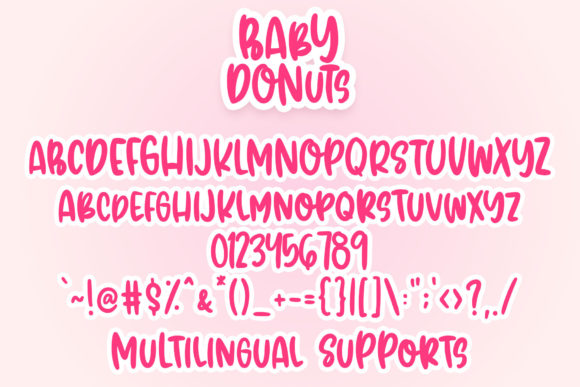
Discover the Sweet Delight of Baby Donuts Font
Have you ever been working on a design project and suddenly, a burst of creativity hits you? The colors, the textures, the fonts – everything comes together in perfect harmony. That’s what happened to me when I stumbled upon the Baby Donuts Font. Its sweet, crafty design immediately caught my eye and sparked a wave of inspiration.
Baby Donuts Font is a charming display font that embodies the spirit of playfulness and happiness. Its bold characters are designed to add a unique and naturally attractive flair to any design. Whether you’re creating a birthday invitation, a children’s book, or a social media post, Baby Donuts Font is sure to bring a smile to your audience’s face.
As a designer, you know how valuable it is to have a versatile font that can elevate your designs to the next level. Baby Donuts Font is that font. Its versatility and charm make it an ideal choice for any project that requires a touch of whimsy and fun.
Baby Donuts Font Key Features
- Font Family: Baby Donuts is a custom-designed font family.
- Character Count: Baby Donuts contains a wide range of characters, including uppercase and lowercase letters, numbers, and special symbols.
- Unique Characteristics: The font features a playful, hand-drawn style with rounded edges and a soft, pastel color scheme, making it ideal for use in children’s products, food branding, and other applications where a friendly, approachable look is desired.
Baby Donuts Font Review
Overall, I was quite excited to dive into the Baby Donuts Font, and while it has some lovely qualities, it also has some limitations that might make it less suitable for certain projects.
- The Baby Donuts Font has a very unique and playful aesthetic that is perfect for kids’ products, food labels, or any project that needs a fun, whimsical touch.
- The font is highly legible, even at small sizes, which makes it a great choice for packaging or labels where space is limited.
- The font comes with a variety of weights and styles, allowing you to customize it to fit your project’s needs.
- The font is quite bold and attention-grabbing, which might be overwhelming for some projects or audiences.
- The font’s unique style can also make it difficult to pair with other fonts or designs, so you might need to be careful when combining it with other elements.
- The font is not suitable for formal or professional projects, as it may come across as too playful or childish.
Overall, I would recommend the Baby Donuts Font for projects that require a fun, playful touch, but I would advise against using it for more formal or professional projects. With careful planning and consideration, this font can add a delightful touch to your designs.
For best results, use the “Baby Donuts Font” in designs that require a playful and whimsical touch, such as children’s party invitations, baby shower decorations, or food truck branding.
Experiment with different font sizes, colors, and combinations to create visually appealing designs.
Consider pairing the “Baby Donuts Font” with other playful fonts or graphics to add an extra layer of personality to your